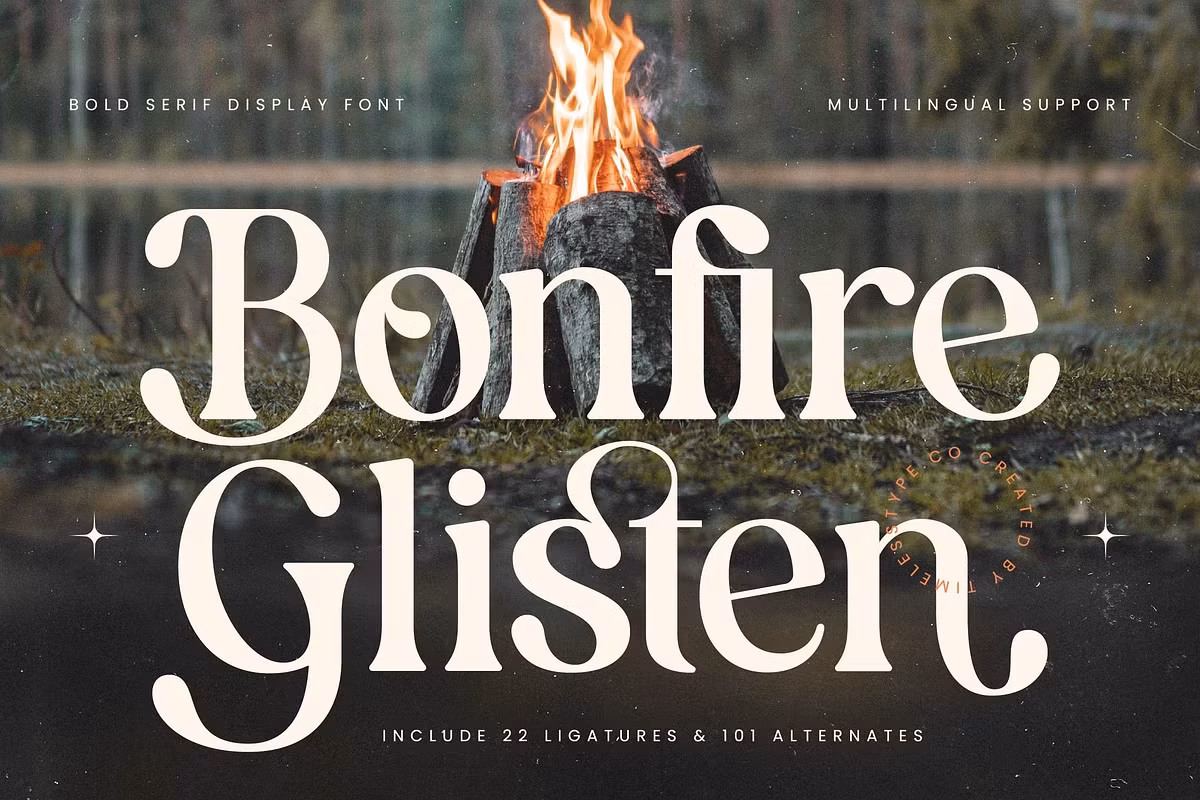
Bonfire Glisten Bold Serif Display Free Download
Bonfire Glisten Bold Serif Display Free Download is a striking and bold serif typeface designed to make a statement. With its sharp lines and distinctive letterforms, this font is perfect for creating eye-catching headlines, logos, posters, and more. Its strong, bold presence ensures your designs stand out with a modern, professional appeal.